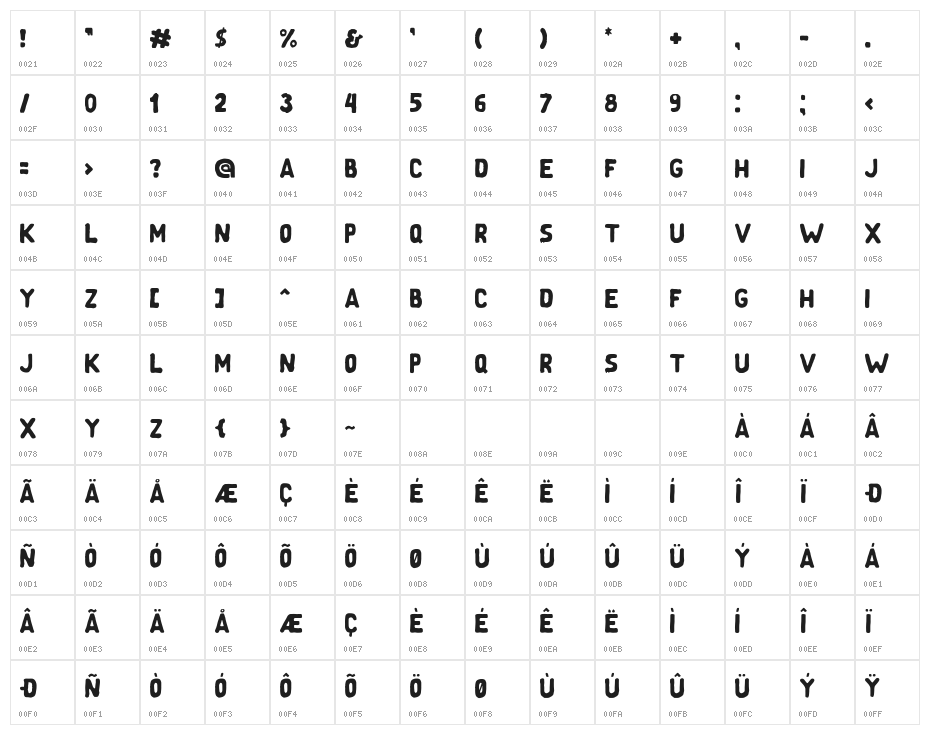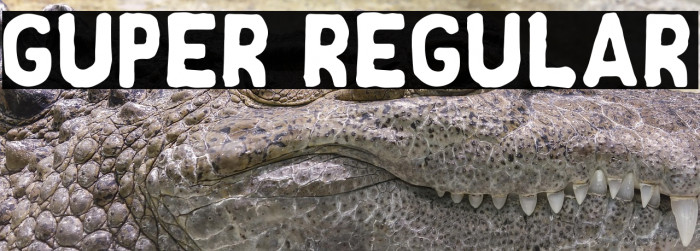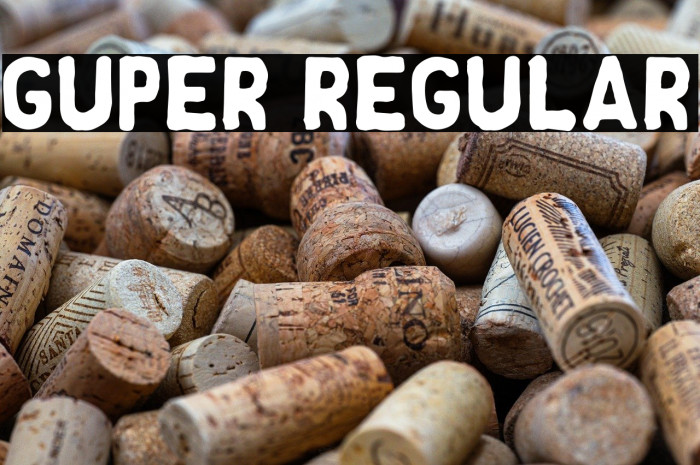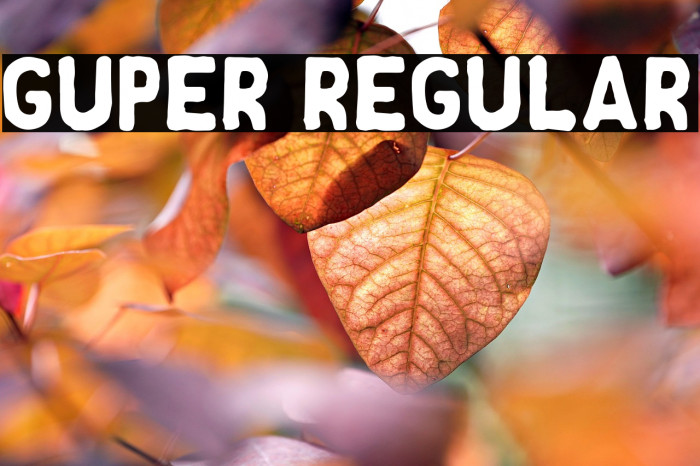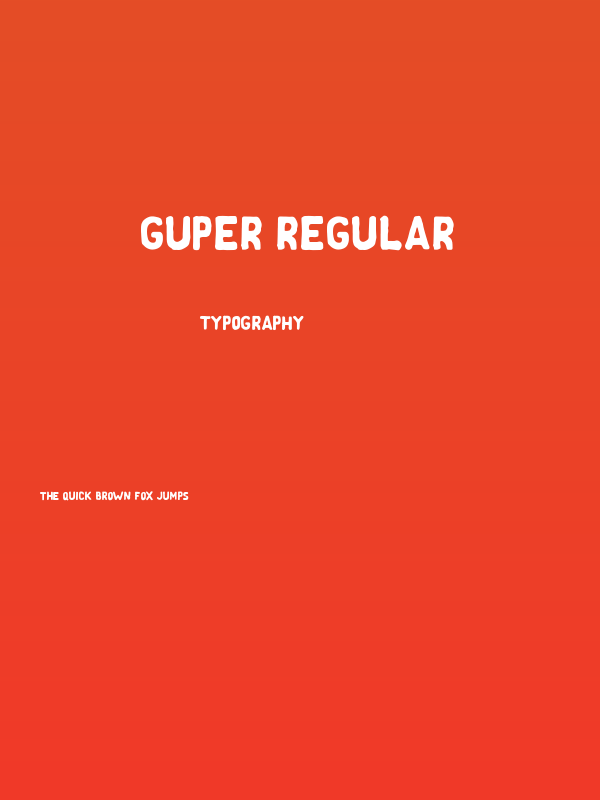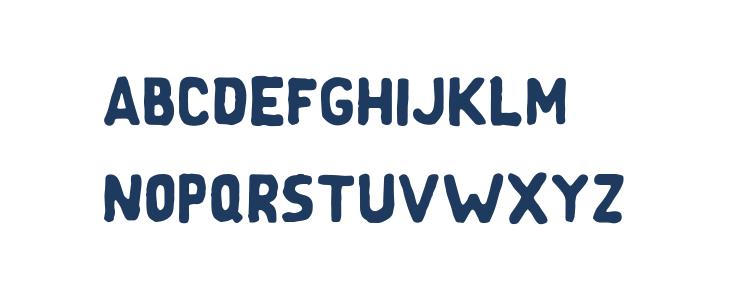
Guper Regular Font
Guper Regular Description
This font features a bold and playful design with a hand-drawn aesthetic. The characters are thick and rounded, giving them a friendly and approachable appearance. The strokes are uneven, adding to the casual and informal feel of the font. It includes a full set of uppercase and lowercase letters, numbers, and a variety of special characters. The overall look is reminiscent of a marker or brush style, making it suitable for projects that require a personal touch or a creative flair.
| Overall Style | Playful, Casual |
| Proposed Projects | Ideal for children's books, posters, greeting cards, and creative branding projects. |